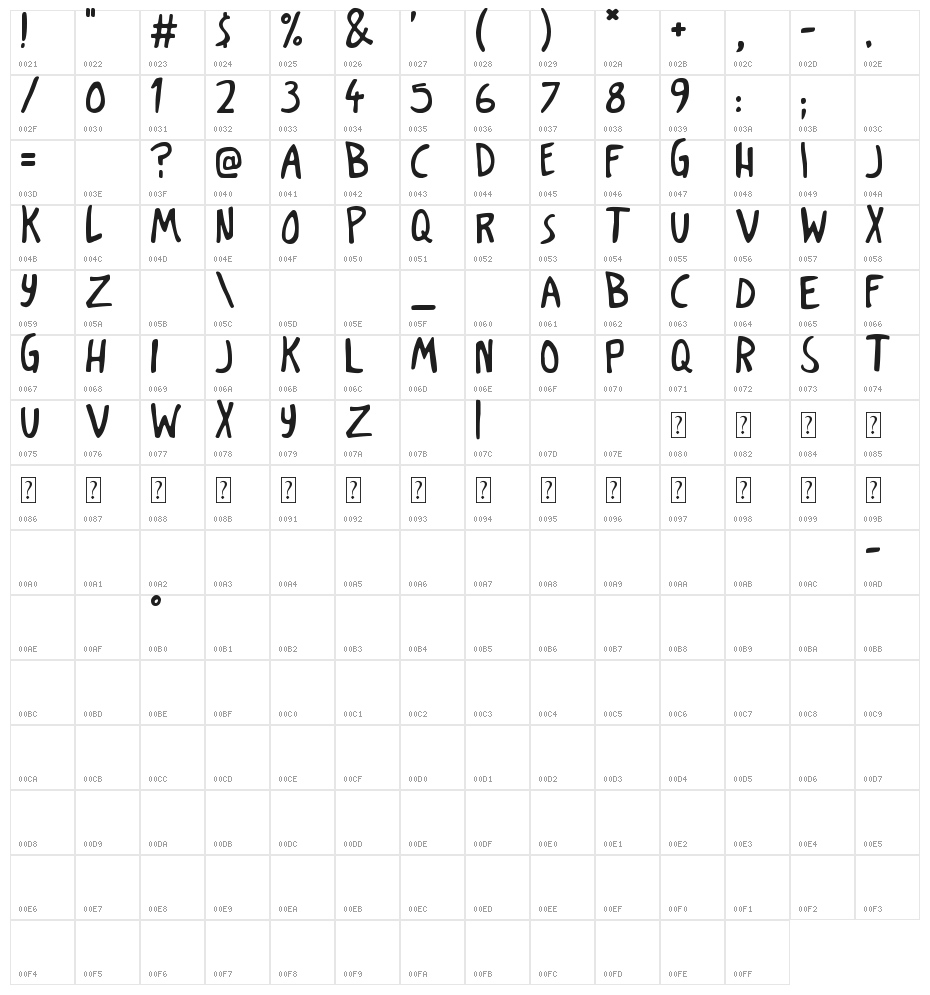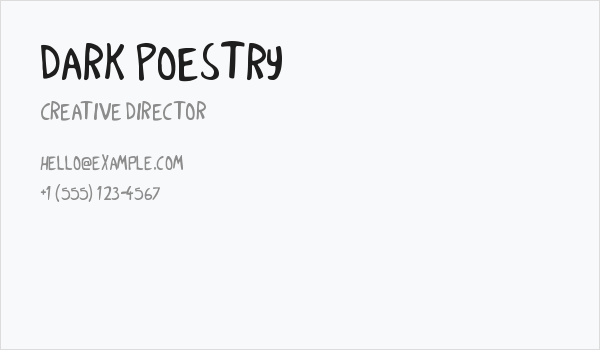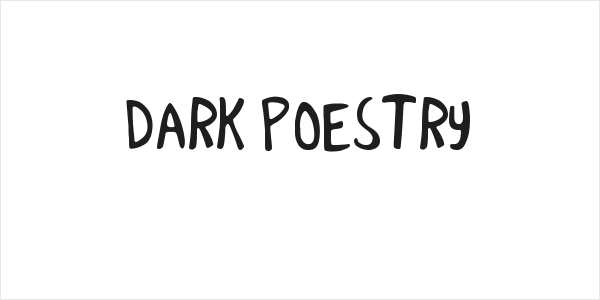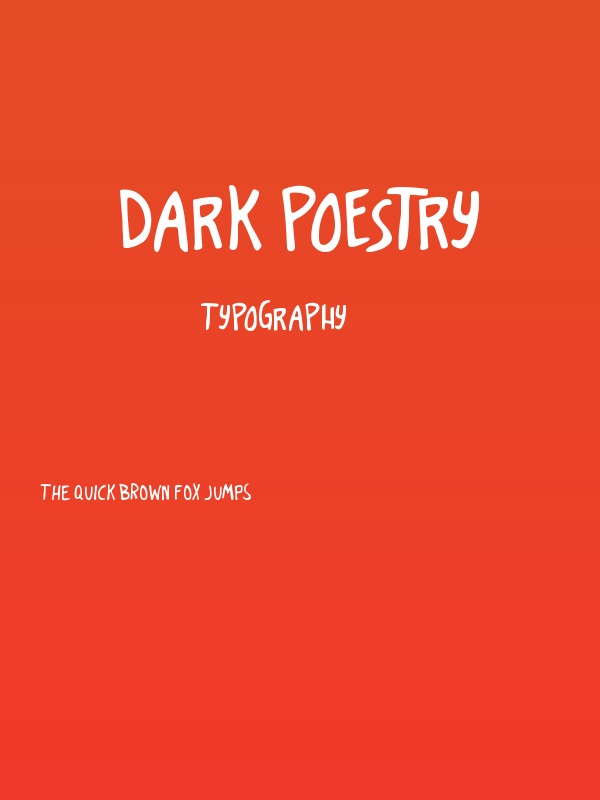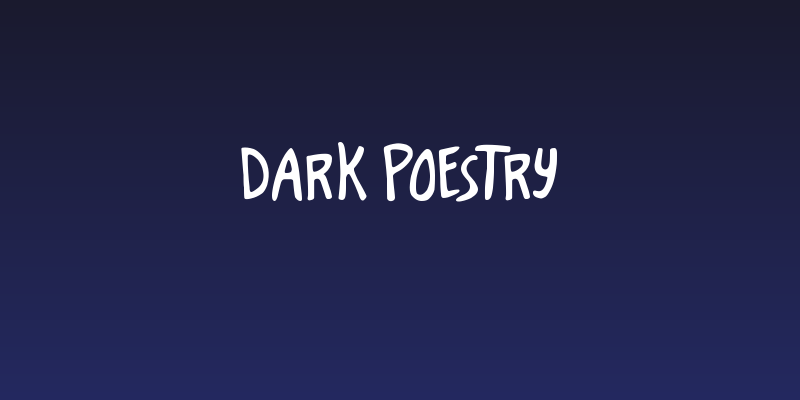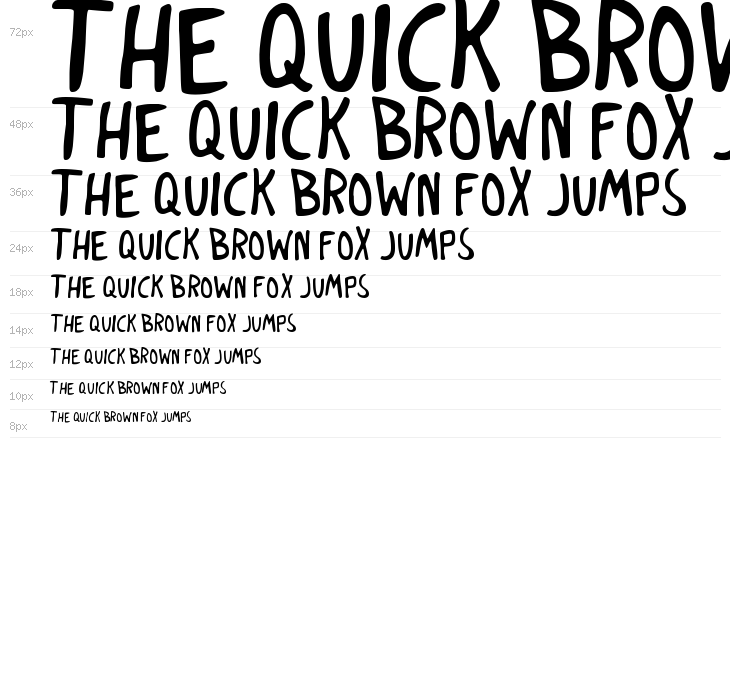
Dark Poestry Font
Dark Poestry Description
This font features a playful and artistic handwritten style, characterized by its bold and slightly irregular strokes. The letters have a whimsical and casual appearance, with a consistent thickness that gives it a strong presence. The uppercase and lowercase letters maintain a cohesive look, while the numbers and special characters complement the overall design. The font's organic flow and unique character shapes make it stand out, offering a creative and informal vibe. It's suitable for projects that require a personal touch or a creative flair, such as invitations, posters, or artistic branding.
| Use Case | Headlines, Logos, Artistic projects |
| Proposed Projects | Ideal for creative projects like invitations, posters, artistic branding, and personal stationery. |